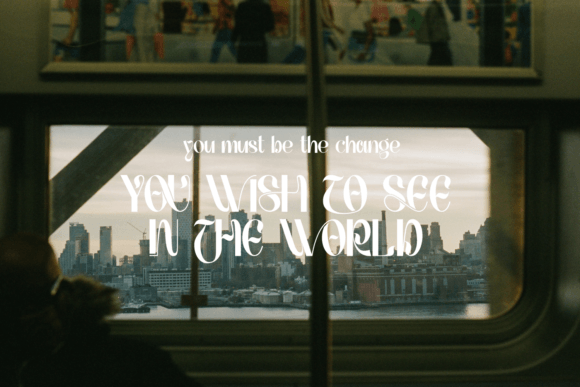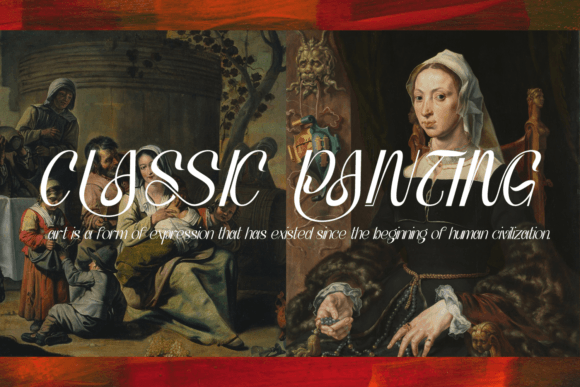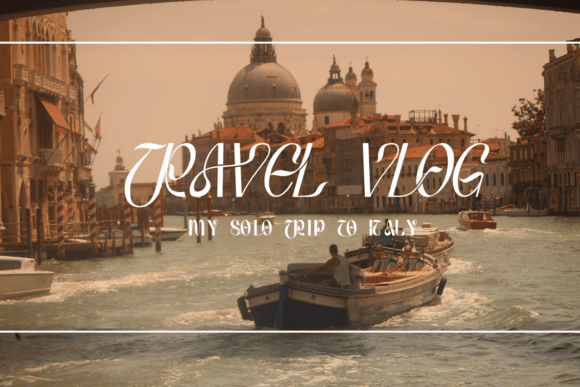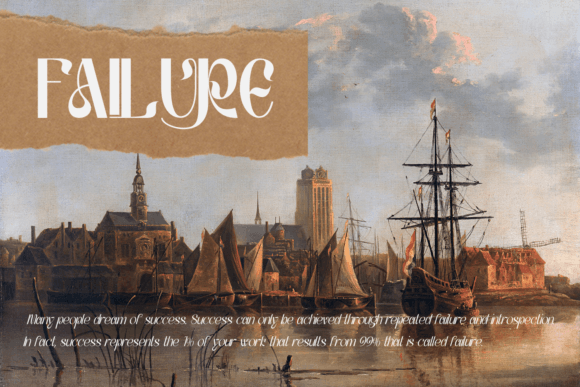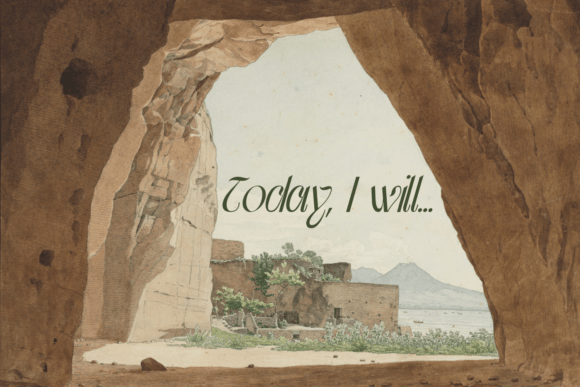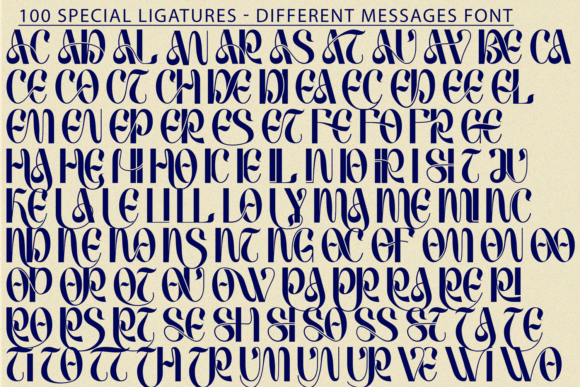
Unleash Your Creativity with DIFFERENT MESSAGES FONT: A Psychedelic Masterpiece
In the realm of typography, there’s a new kid on the block that’s turning heads and pushing boundaries. Say hello to DIFFERENT MESSAGES FONT, a highly stylized typeface that’s as vibrant as it is unique. This modern display font is not your everyday, run-of-the-mill typeface. It’s a game-changer, designed to add a dash of psychedelic flair to any design project. Whether you’re a designer, crafter, or simply a creative enthusiast, DIFFERENT MESSAGES FONT is sure to captivate your imagination.
A One-of-a-Kind Typeface
What sets DIFFERENT MESSAGES FONT apart from other typefaces is its over-the-top psychedelic vibe. This font is not just a collection of letters and numbers; it’s an experience. Its modern, stylized design makes it perfect for projects that demand attention and creativity. From branding and product packaging to invitations, quotes, t-shirts, labels, posters, and logos, DIFFERENT MESSAGES FONT is the ultimate versatile typeface.
Built with OpenType Features
DIFFERENT MESSAGES FONT is built with OpenType features, making it a powerful tool for designers. With 100 ligatures, alternate characters, numbers, punctuation, and support for multiple languages, this font offers endless possibilities for creative expression. Whether you’re looking to add a touch of whimsy or create a bold statement, DIFFERENT MESSAGES FONT has got you covered.
So, what can you create with DIFFERENT MESSAGES FONT? The answer is: anything your imagination desires! Here are a few ideas to get you started:
• Branding: Create a memorable brand identity with a unique logo or typographic treatment that sets you apart from the competition.
• Product Packaging: Add a pop of color and personality to your product packaging with DIFFERENT MESSAGES FONT.
• Invitations: Design eye-catching invitations for parties, weddings, or events that will leave a lasting impression.
• Quotes and Posters: Create inspiring quotes and posters that showcase your message in a bold, eye-catching way.
• T-Shirts and Merchandise: Design custom apparel and merchandise that showcases your personal style or brand identity.
• Labels and Stickers: Create custom labels and stickers that add a touch of personality to your products or packaging.
Why Choose DIFFERENT MESSAGES FONT?
With so many typefaces available, why choose DIFFERENT MESSAGES FONT? Here are just a few reasons:
• Unique Design: DIFFERENT MESSAGES FONT is a one-of-a-kind typeface that will set your designs apart from the rest.
• Versatility: This font can be used for a wide range of design projects, from branding and packaging to invitations and merchandise.
• OpenType Features: With 100 ligatures, alternate characters, and support for multiple languages, this font offers endless creative possibilities.
DIFFERENT MESSAGES FONT is a game-changing typeface that’s sure to unleash your creativity and take your designs to the next level. With its unique, psychedelic design and versatile OpenType features, this font is perfect for designers, crafters, and creative enthusiasts alike. So why settle for ordinary when you can create something extraordinary with DIFFERENT MESSAGES FONT?
Whether you’re looking to add a touch of whimsy or create a bold statement, DIFFERENT MESSAGES FONT is the ultimate tool for creative expression. So go ahead, get creative, and make your mark with this incredible typeface!